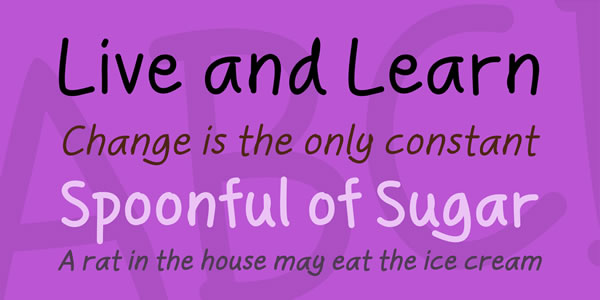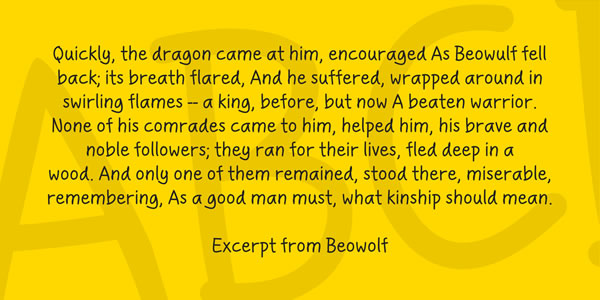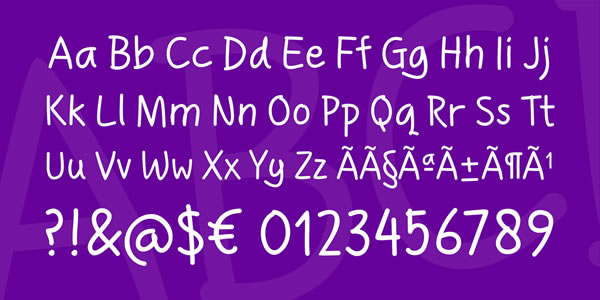
Discover the Unique Charm of Handgley Font: A Creative Asset for Designers and Crafters
Handgley is a font created by Situjuh Nazara, a distinctive typeface that has been gaining attention among designers and crafters alike. This article aims to provide an in-depth look at the Handgley font, exploring its origins, characteristics, and uses, as well as its benefits for creative professionals.
The Origins of Handgley Font
Handgley font was designed by Situjuh Nazara, a talented font creator who has contributed to the world of typography with unique and innovative designs. The Handgley font is one of Nazara’s notable creations, showcasing his skill and attention to detail in crafting a typeface that stands out from the rest.
Characteristics of Handgley Font
The Handgley font boasts a distinctive and charming appearance, making it a valuable asset for designers and crafters. Some of its key characteristics include:
- Unique letterforms: Handgley features letterforms that are carefully crafted to give the font a personal and handmade feel.
- Playful feel: The font has a playful and whimsical feel, making it perfect for projects that require a touch of personality.
- Legibility: Despite its unique appearance, Handgley remains highly legible, making it suitable for use in a variety of applications.
Uses of Handgley Font
The Handgley font is versatile and can be used in a range of creative projects, including:
- Branding and logos: Handgley’s unique charm makes it an excellent choice for branding and logo design.
- Digital and print media: The font can be used in digital and print media, such as brochures, posters, and social media graphics.
- Crafting and DIY projects: Handgley’s playful feel makes it perfect for crafting and DIY projects, such as handmade cards and invitations.
Benefits of Using Handgley Font
Using the Handgley font offers several benefits for designers and crafters, including:
- Instant recognition: Handgley’s unique appearance ensures instant recognition and can help set a brand or project apart.
- Emotional connection: The font’s playful feel can help create an emotional connection with the audience, making it perfect for projects that require a personal touch.
- Time-saving: With Handgley, designers and crafters can save time and effort, as the font can be easily customized to fit their needs.
Tips for Using Handgley Font Effectively
To get the most out of the Handgley font, consider the following tips:
- Pair with complementary fonts: Pair Handgley with complementary fonts to create visual interest and hierarchy.
- Experiment with colors: Experiment with different colors to find the perfect combination that matches your brand or project’s tone.
- Use in moderation: Use Handgley in moderation to avoid overwhelming the audience and to maintain legibility.
In conclusion, the Handgley font is a unique and charming typeface that offers a range of creative possibilities for designers and crafters. With its distinctive letterforms, playful feel, and legibility, Handgley is an excellent choice for projects that require a personal touch. By understanding the characteristics, uses, and benefits of Handgley, creative professionals can unlock its full potential and take their designs to the next level.